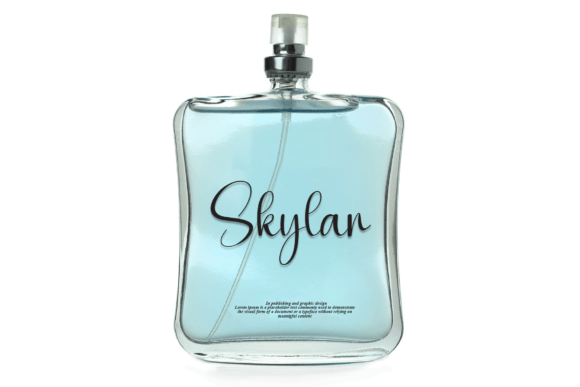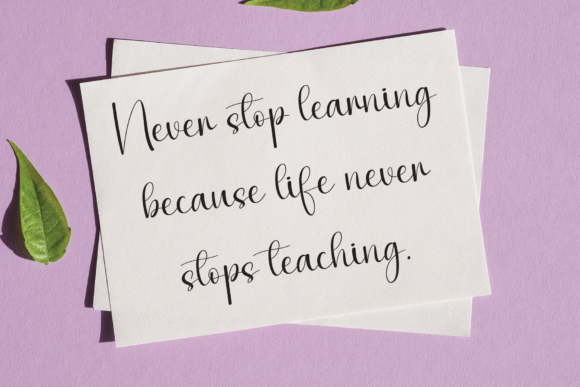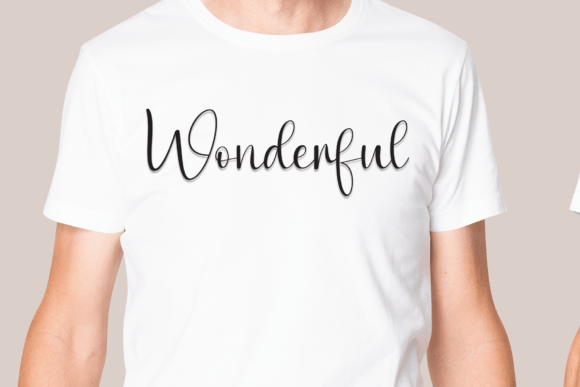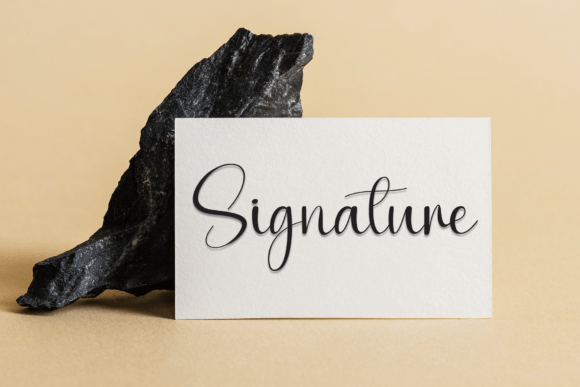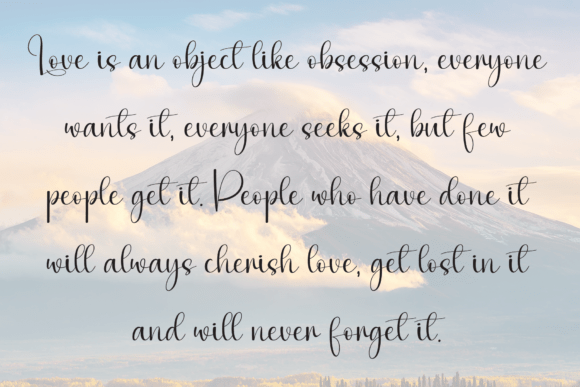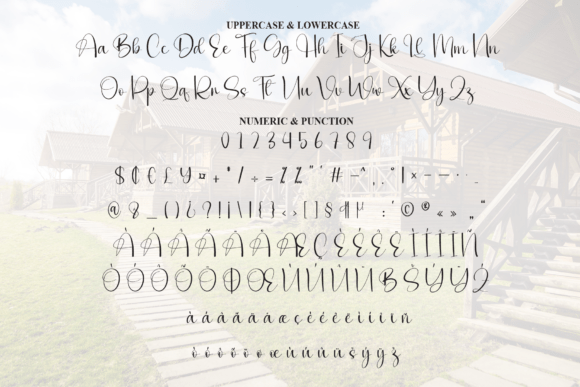
Cottages Font: A Uniquely Creative Typeface for Exceptional Visual Experiences
In the realm of typography, a well-crafted font can elevate a design from ordinary to extraordinary. Introducing Cottages Font, a modern lettering style that promises to deliver an exceptional visual experience. This uniquely creative typeface is perfect for designers and crafters seeking to add a touch of elegance and sophistication to their projects.
What Makes Cottages Font Stand Out?
Cottages Font boasts a distinctive, hand-crafted aesthetic that sets it apart from more traditional typefaces. Its modern lettering style is characterized by clean lines, flowing curves, and a dash of whimsy, making it an ideal choice for a wide range of applications. Whether you’re designing wall displays, wedding invitations, social media post logos, advertisements, product packaging, or labels, Cottages Font is sure to make a lasting impression.
The versatility of Cottages Font is one of its most significant advantages. This adaptable typeface can be used in various contexts, including:
- Wall displays and signage
- Social media post logos and graphics
- Advertisements and marketing materials
- Product packaging and labeling
- Photography and watermarks
- Invitations and event branding
- Stationery and paper crafts
Wherever you need to make a statement, Cottages Font is up to the task.
Why Choose Cottages Font?
With Cottages Font, you’ll enjoy a range of benefits that set it apart from other typefaces. Here are just a few reasons why designers and crafters are choosing Cottages Font:
- Unique and eye-catching design: Cottages Font offers a fresh, modern aesthetic that’s sure to capture attention.
- Exceptional versatility: This typeface can be used in a wide range of applications, from digital designs to print materials.
Cottages Font is a uniquely creative typeface that’s poised to elevate your designs to new heights. With its modern lettering style, exceptional versatility, and ease of use, this typeface is perfect for designers and crafters seeking to make a lasting impression. Whether you’re working on a personal project or a professional assignment, Cottages Font is an excellent choice for anyone looking to add a touch of elegance and sophistication to their work.